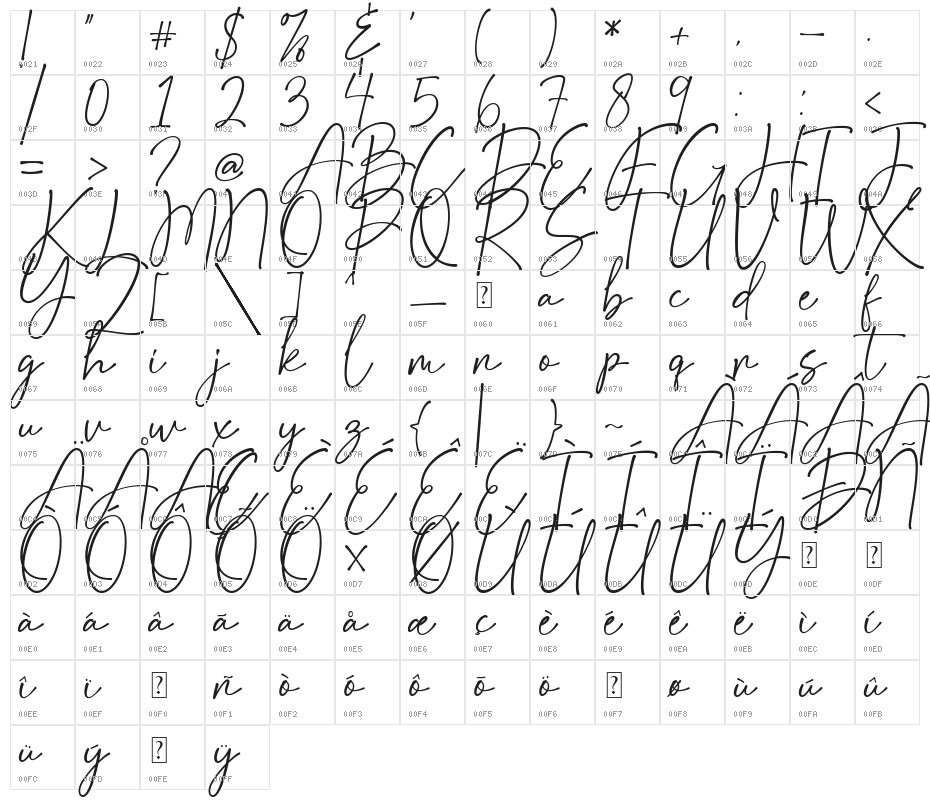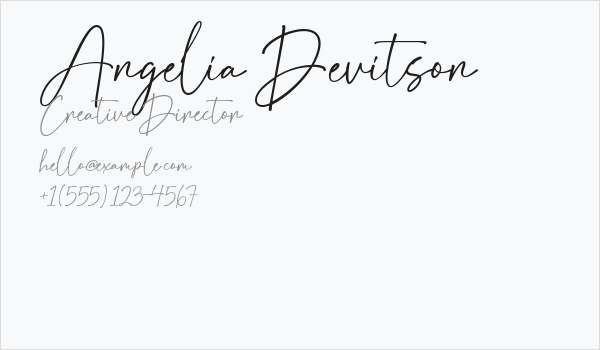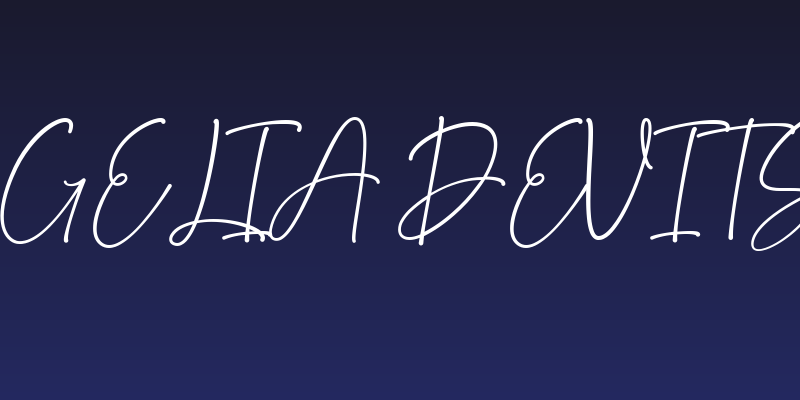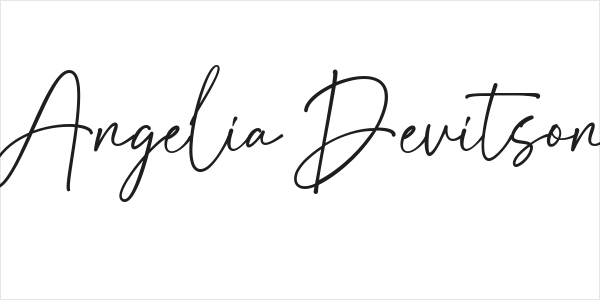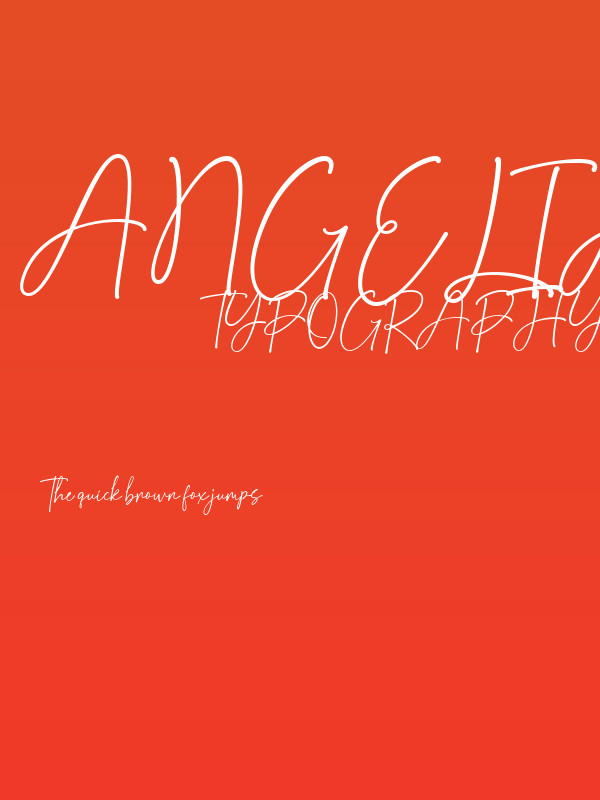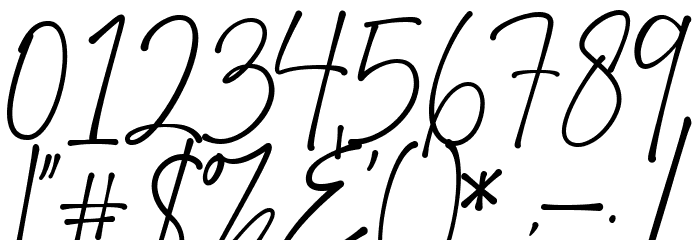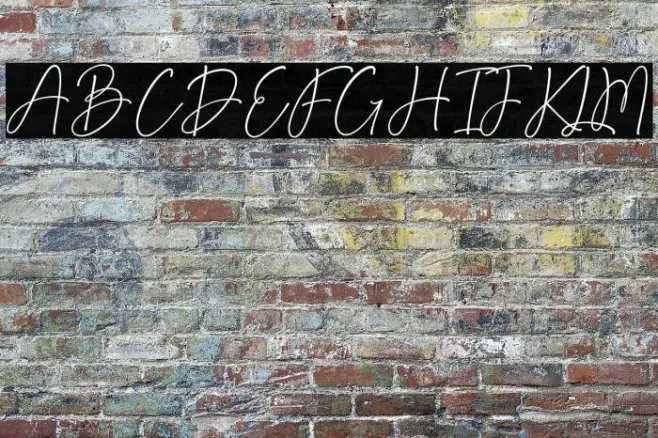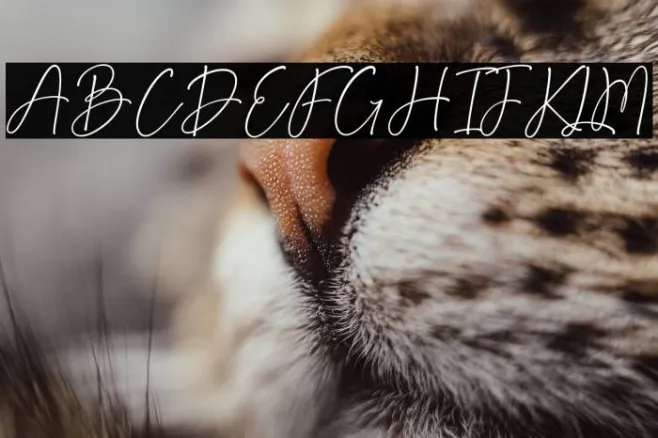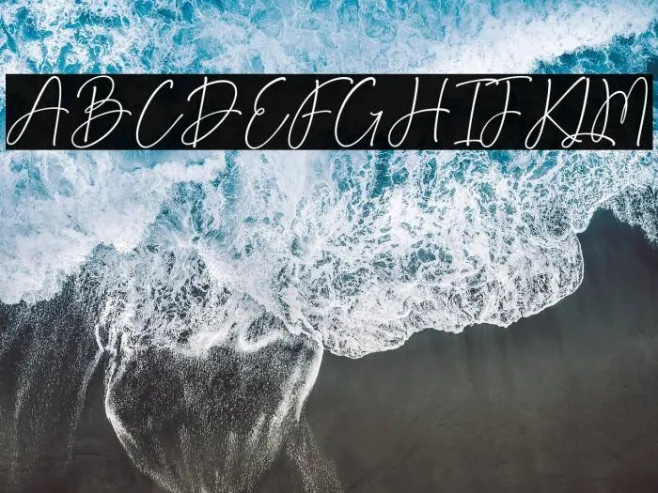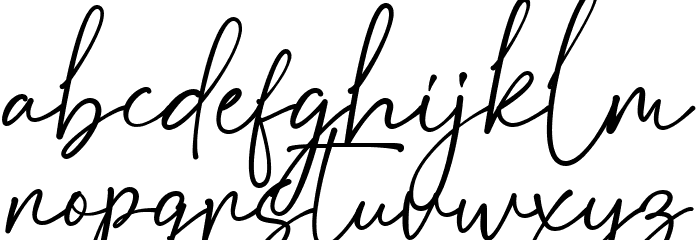
Angelia Devitson Font
Angelia Devitson Description
This font features a flowing, cursive style that mimics elegant handwriting. The uppercase letters are tall and slender, with a slight slant that adds a dynamic feel. The lowercase letters are more rounded and connected, enhancing the script-like appearance. Numbers and special characters maintain the same fluidity, ensuring consistency across all glyphs. The overall look is sophisticated and artistic, making it suitable for projects that require a personal touch.
| Proposed Projects | Ideal for wedding invitations, greeting cards, personal branding, and artistic projects. |